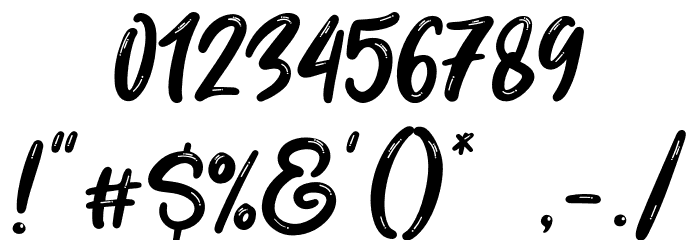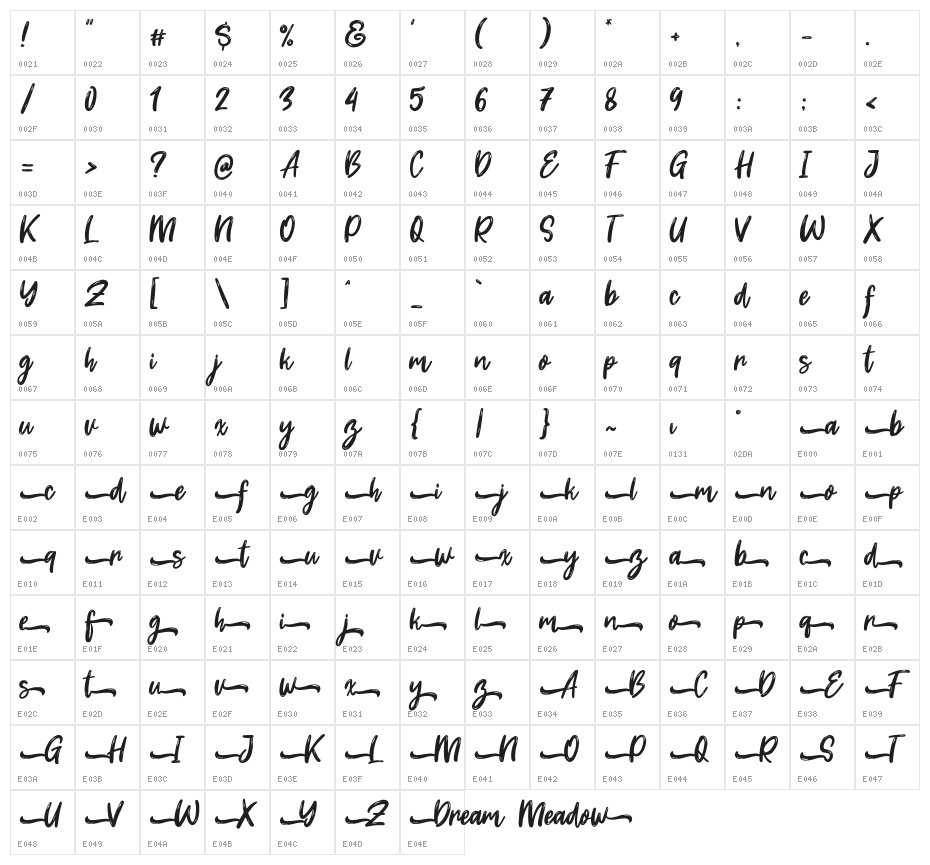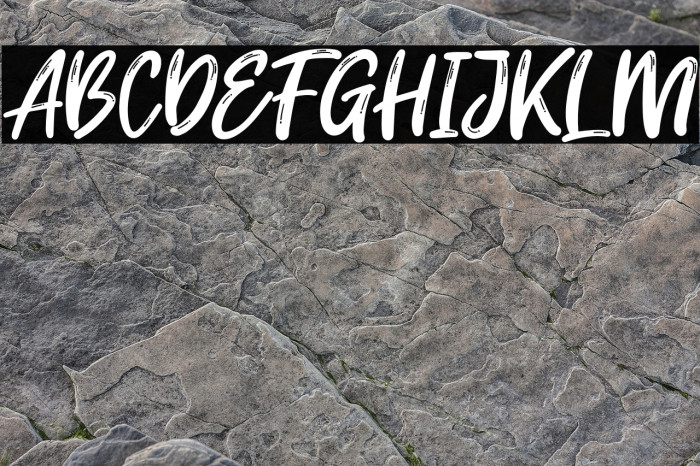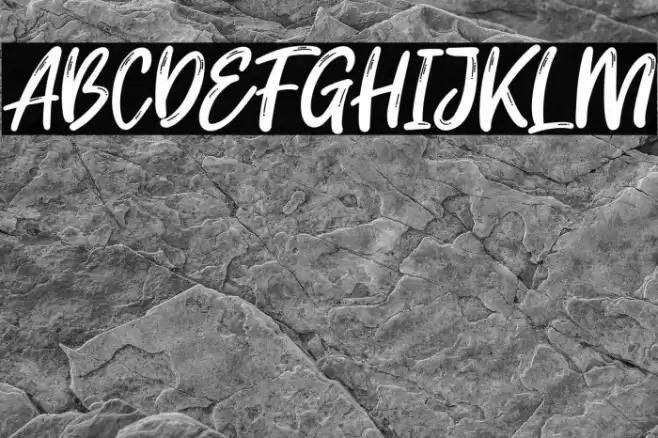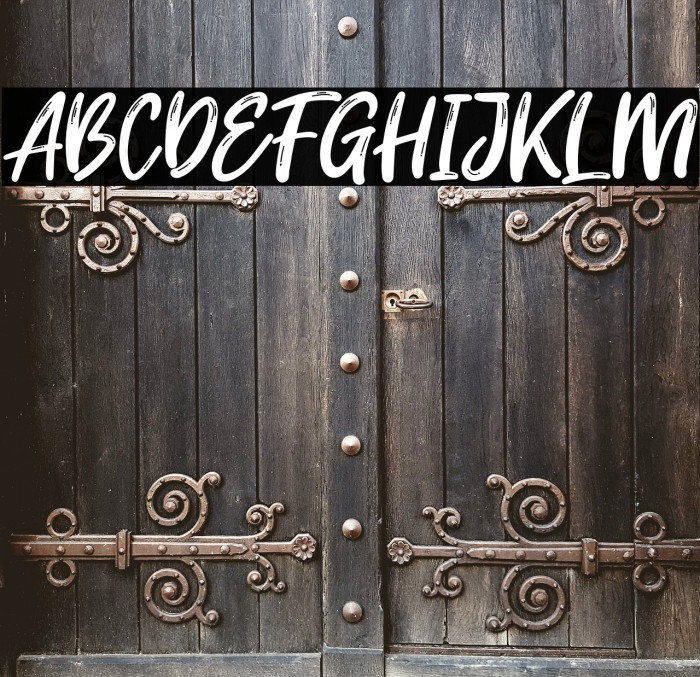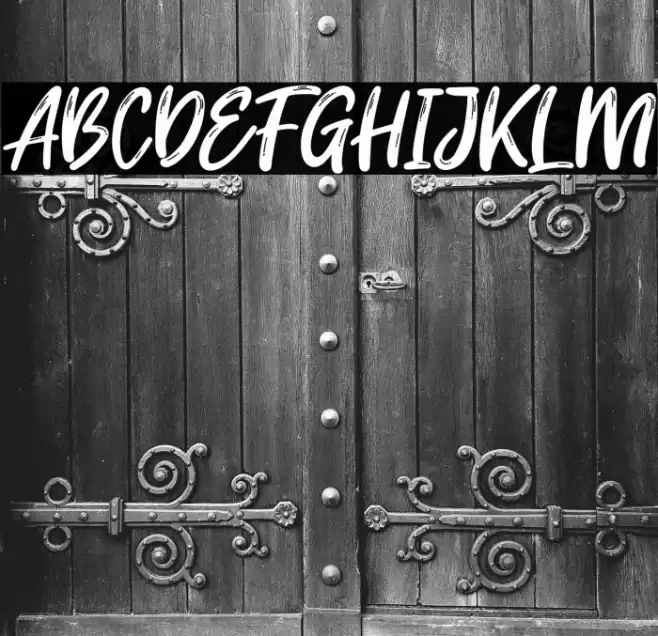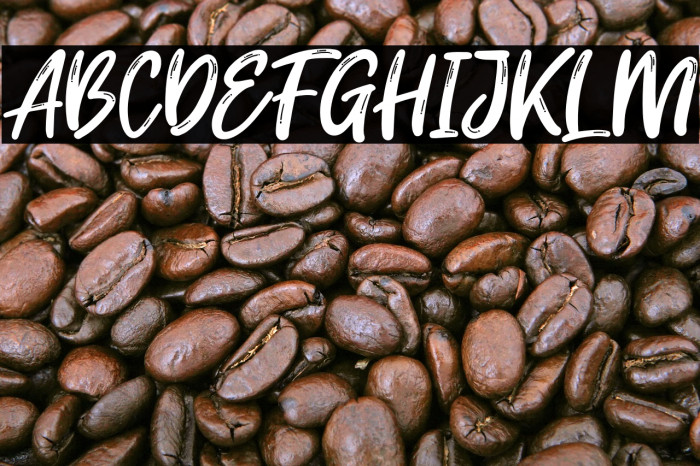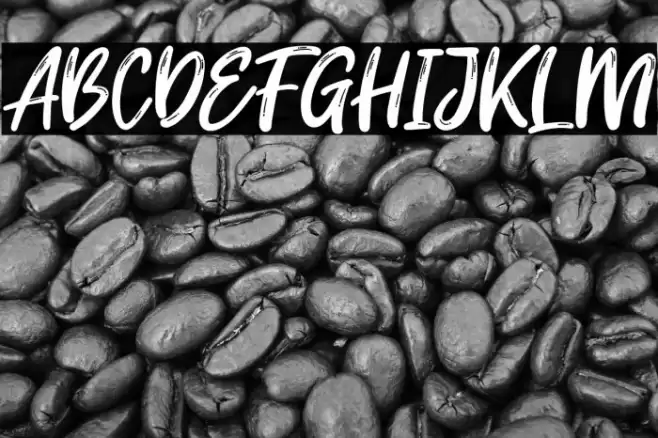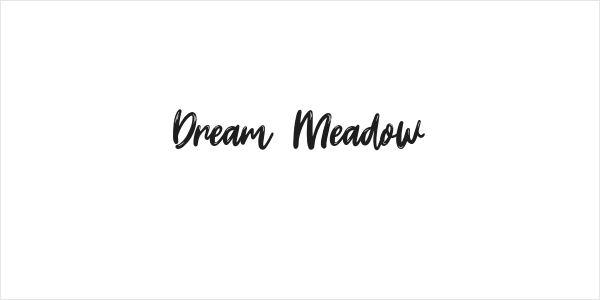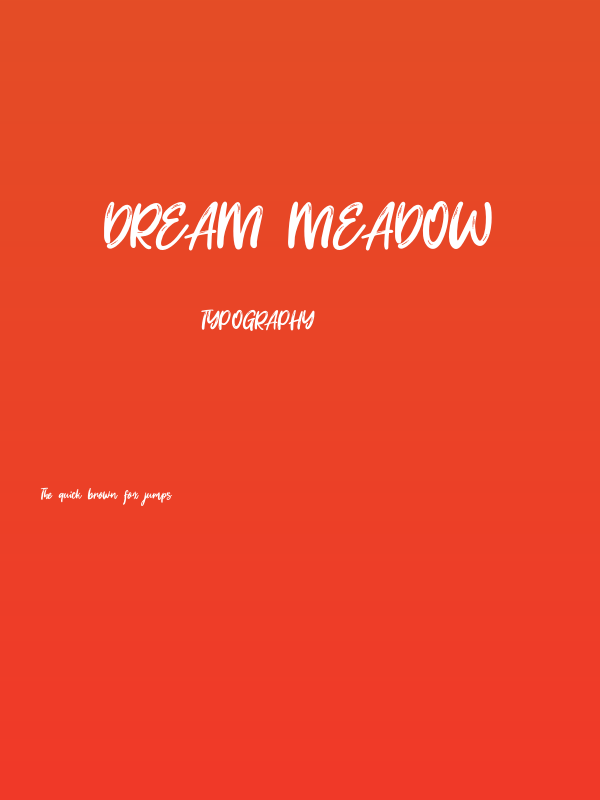
Dream Meadow Font
Dream Meadow Description
This font exudes a lively and energetic vibe with its bold, brush-like strokes that give it a handwritten appearance. The letters are slightly slanted, adding a dynamic flow and a sense of movement. The uppercase characters are robust and commanding, while the lowercase letters maintain a playful and approachable feel. Numerals are consistent with the overall style, ensuring readability while maintaining the font's artistic flair. Special characters are creatively designed, complementing the font's overall aesthetic. This font is perfect for projects that require a personal touch or a creative, informal look.
Proposed ProjectsIdeal for branding, social media graphics, posters, and invitations where a personal and artistic touch is desired.